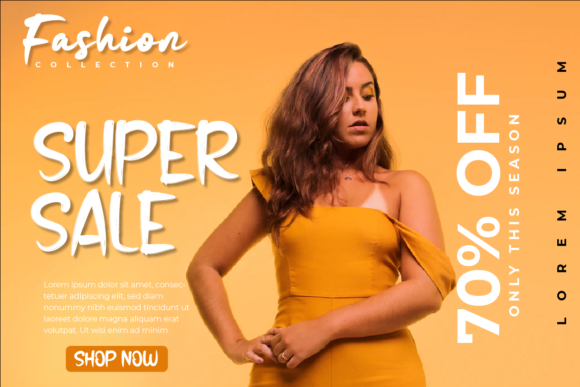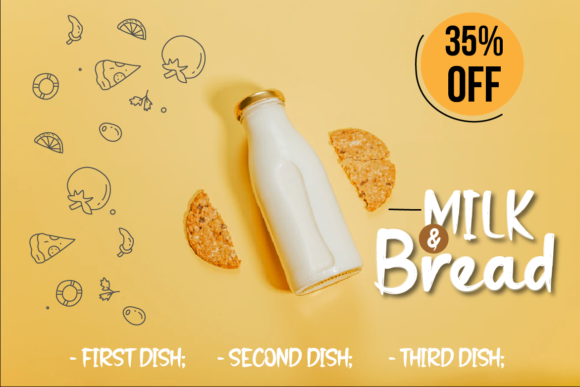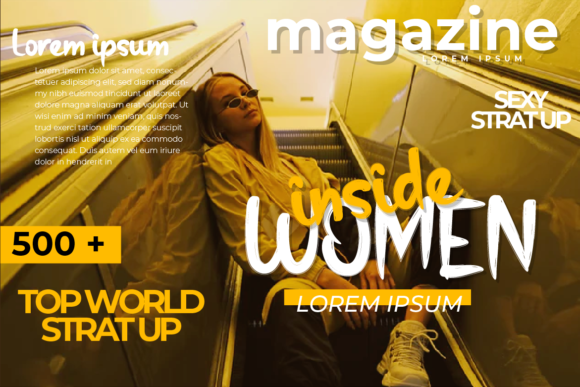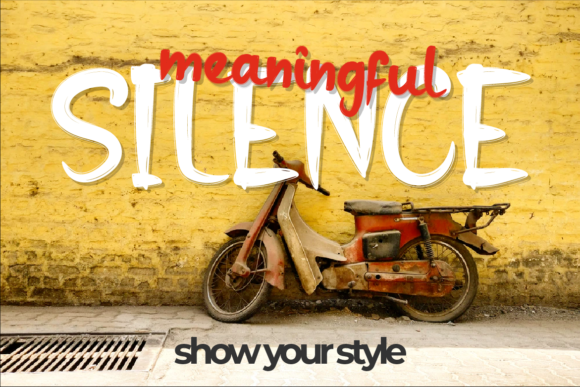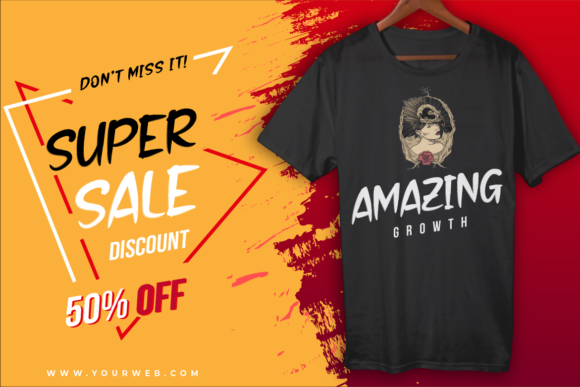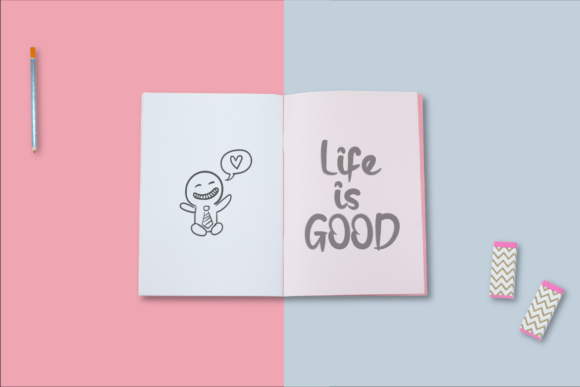
Introduction to Skotteng Font Font
Fonts play a crucial role in design, and the Skotteng Font font is a typeface that brings both character and versatility to any project. Whether you’re working on a branding project, a website, or a print design, the Skotteng Font font offers a unique style that can elevate your work.
Skotteng is a beautiful, brushed display font, created with original hand-drawn strokes.
Defined by a relaxed and elegant feel, as well as a beautiful typographic harmony, Skotteng is the perfect choice for each of your creative ideas .
Key Features of Skotteng Font Font
Why Choose Skotteng Font Font?
The Skotteng Font font is more than just a typeface – it’s a design tool that helps you communicate your message with style and clarity. Its unique character set and versatile design make it suitable for a wide range of applications, from elegant invitations to bold headlines.
With its carefully crafted letterforms and balanced proportions, the Skotteng Font font ensures readability and visual appeal across all mediums.
What makes Skotteng Font font special?
The Skotteng Font font stands out with its unique design, exceptional readability, and versatility across various design applications.